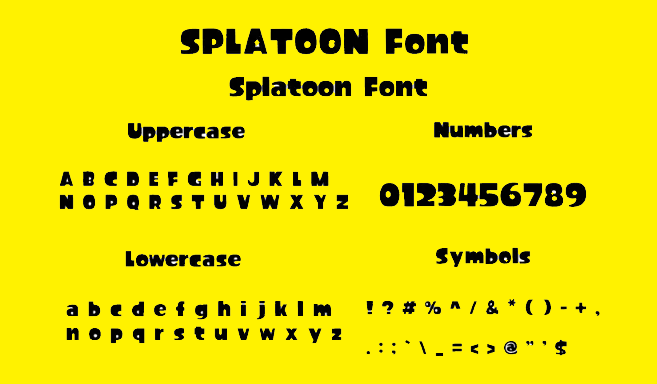
The Splatoon Font takes its design from Nintendo’s successful Splatoon video game. The lively design effectively represents the active vibrant atmosphere of the gaming universe. Many designers and fans use this font because it creates a youthful energetic look through its graffiti-inspired artwork and ink effects. This font creates animated designs that bring curiosity of vibrant street culture to projects.
What is the Splatoon Font? The Splatoon Font reflects key design principles of the games that make up the Splatoon series. The games present colorful ink fights with edgy urban graphics that created a typeface style matching graffiti art designs.Â
The font features bold rounded letters that match the energetic gameplay found in all Splatoon games. The font uses ink blot splatters throughout its letters to match the game’s main battle concept with ink. The scattered ink decorations on letters enable designers to create dynamic yet professional looks for projects targeting young and creative audiences.
The Splatoon text Font’s unique characteristics make it ideal for several applications:
The Splatoon letters Font embodies the cheerful appeal of the “Splatoon” franchise by giving designers a special font that works well in multiple design settings. As a font inspired by graffiti it brings youthful energy to projects making it valuable for creative work that needs to attract attention through fun design.